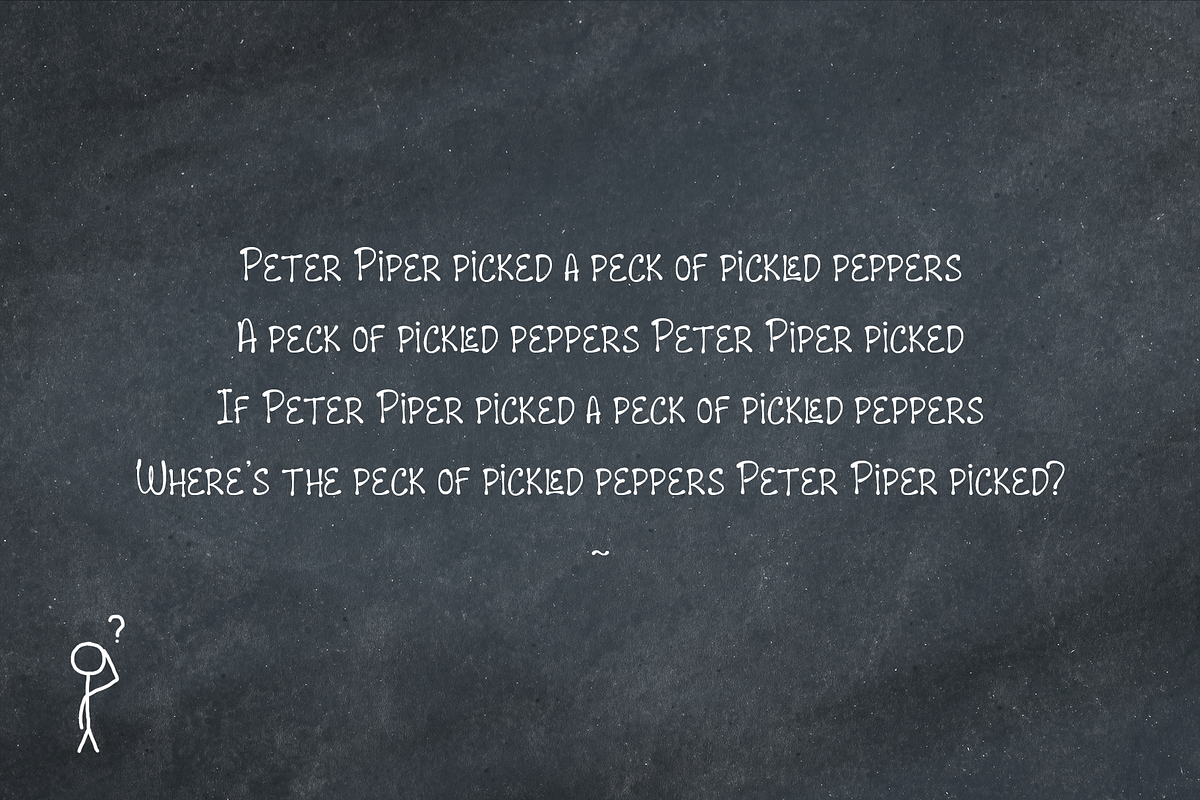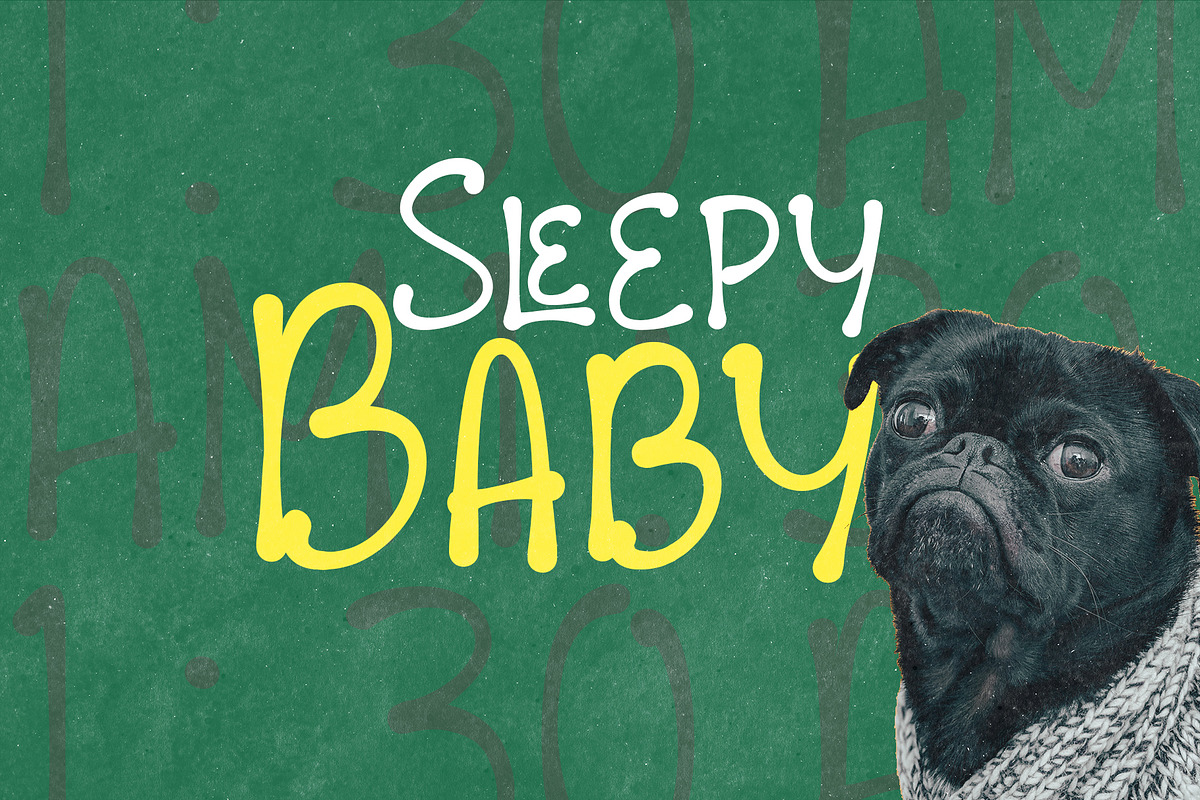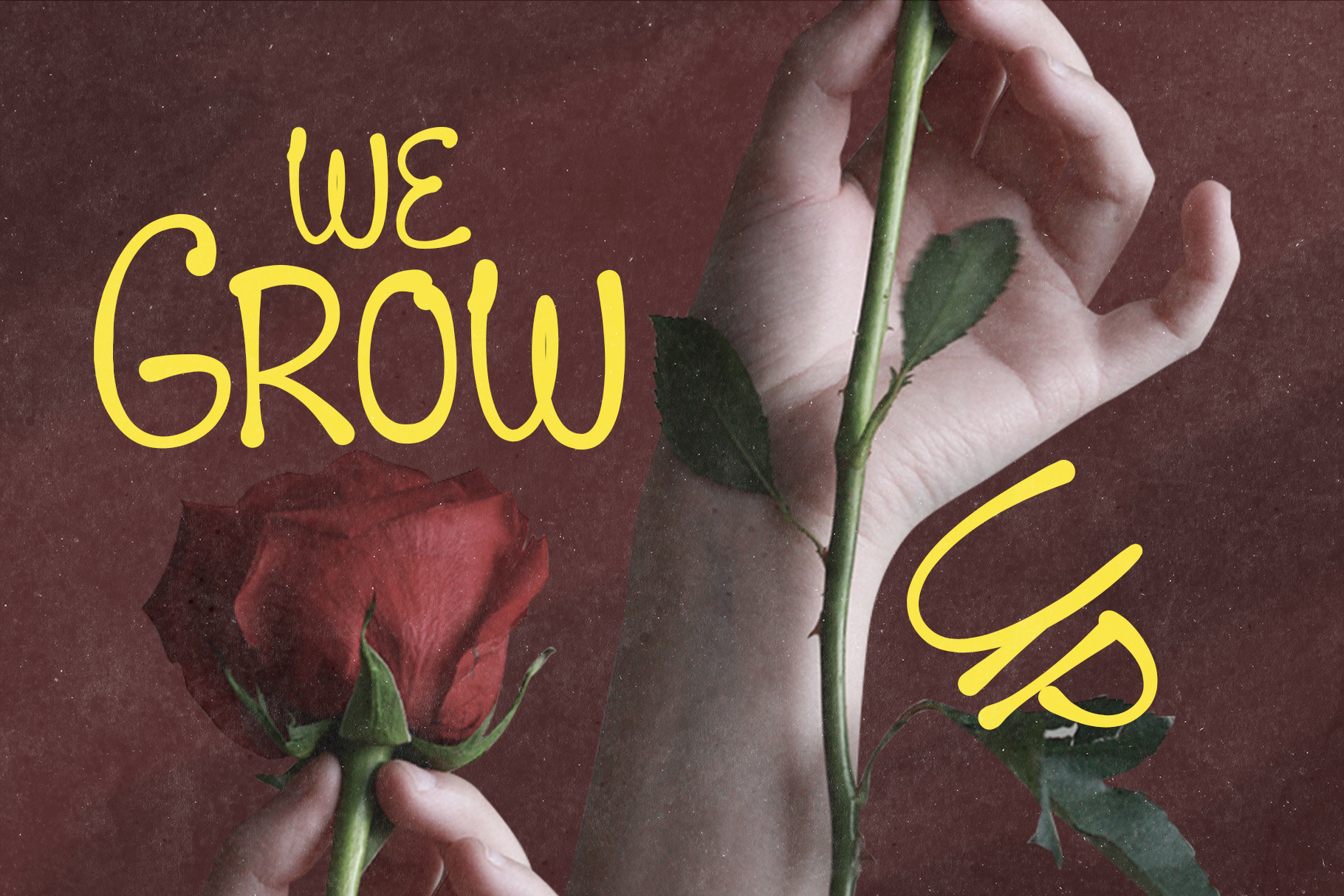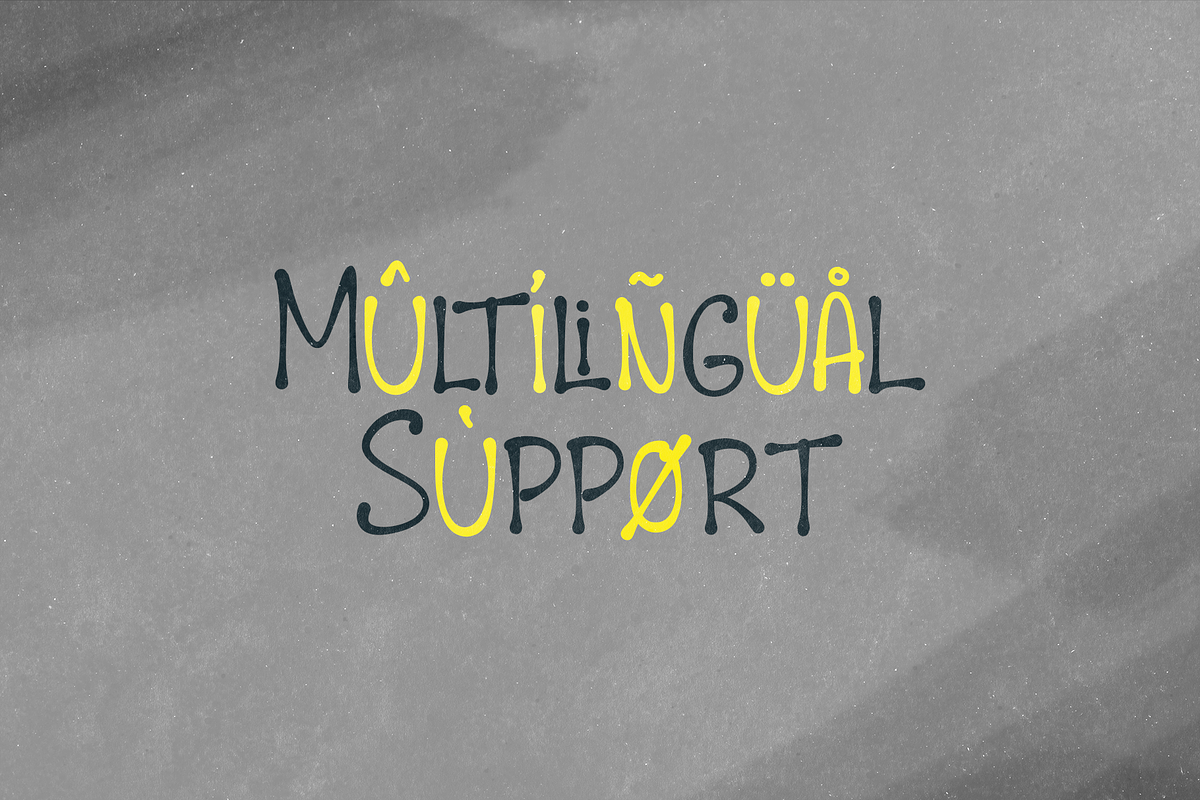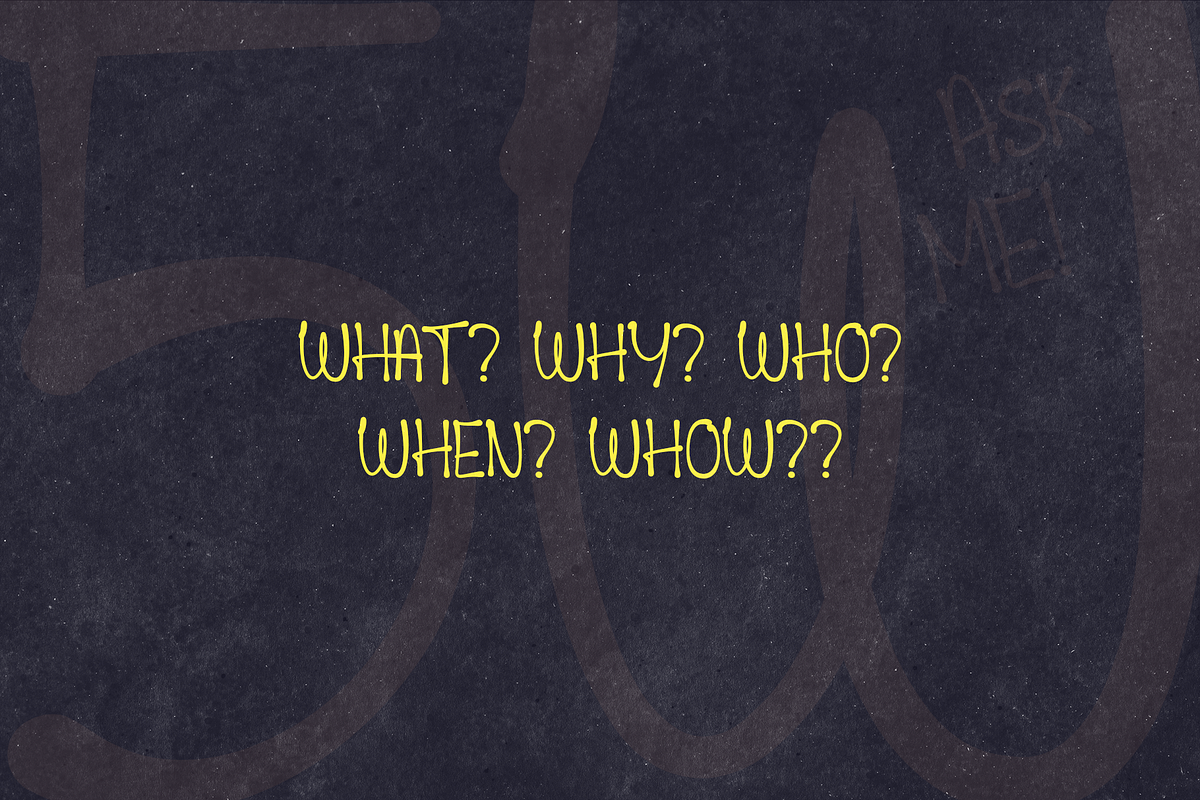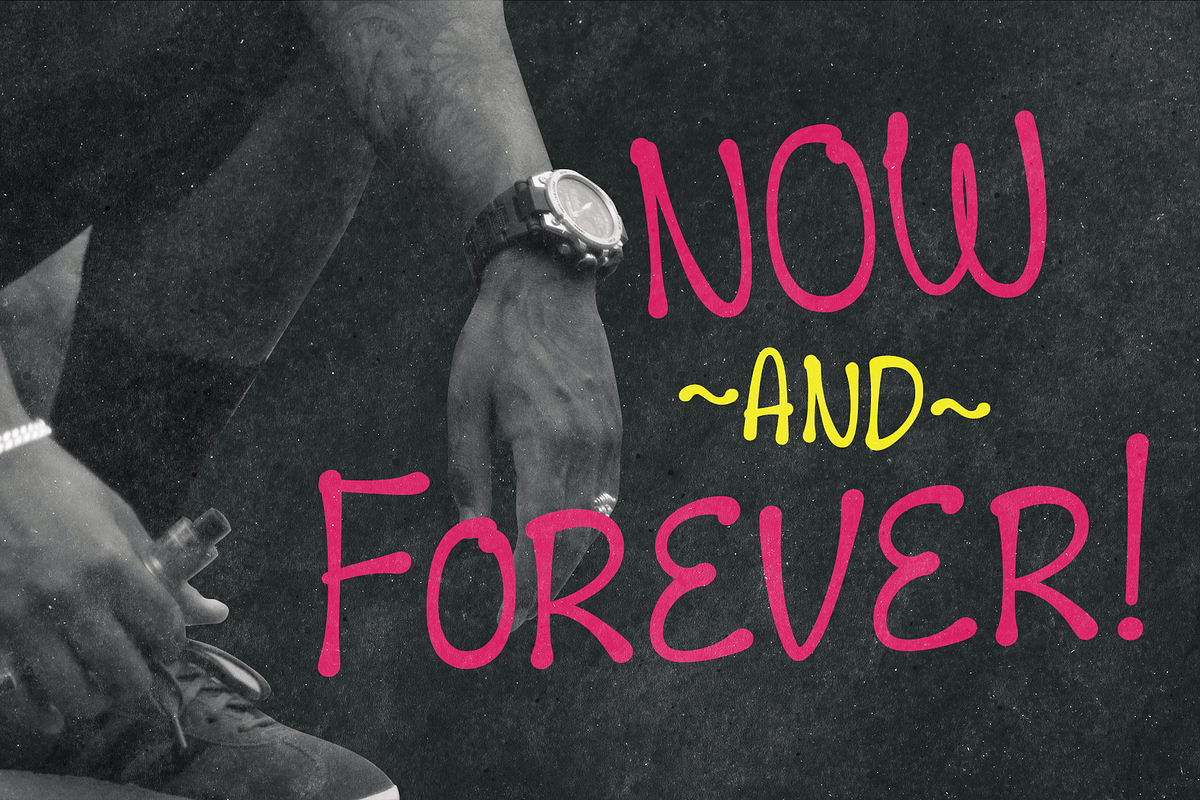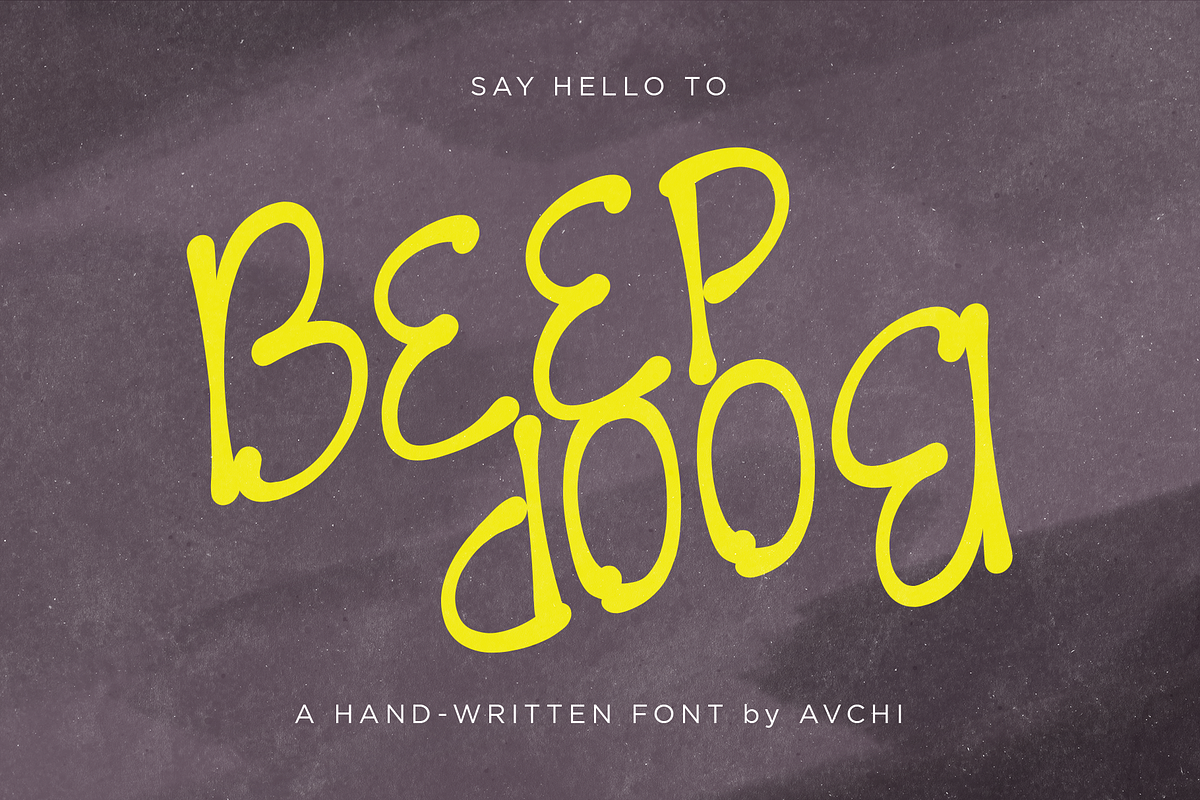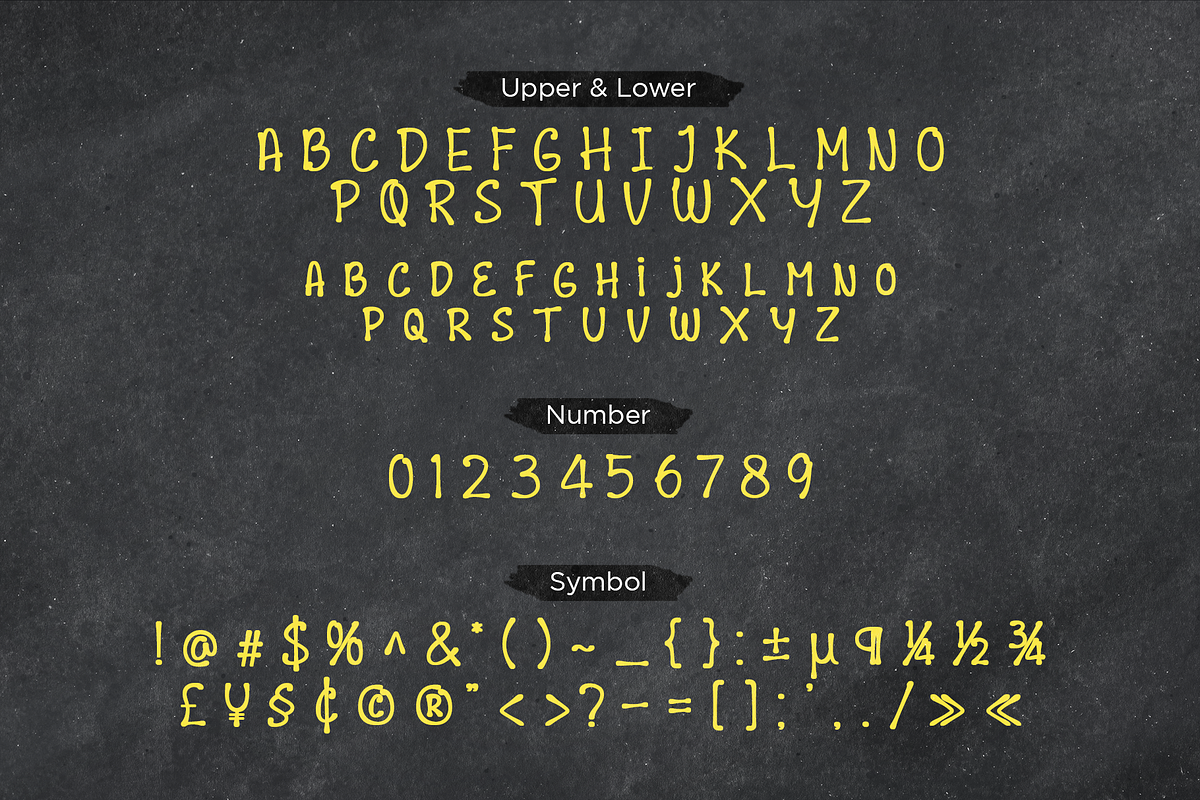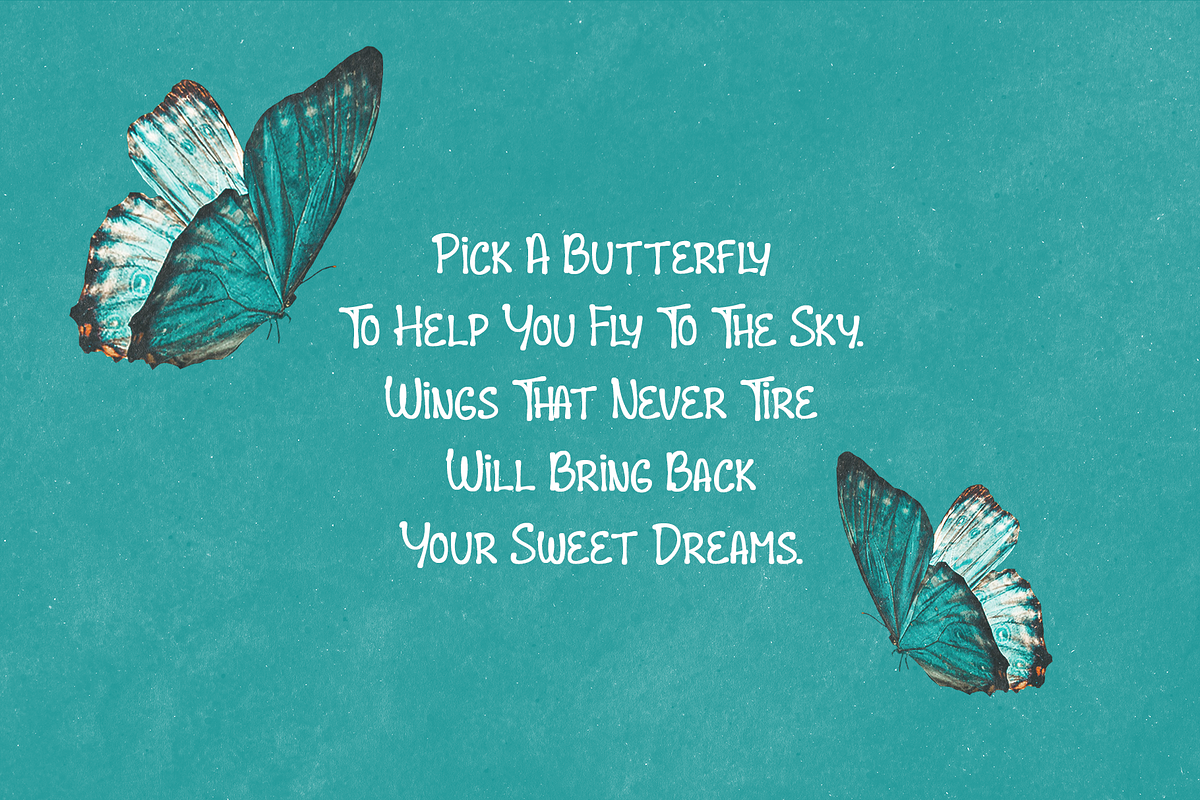
Beep Boop | A Handwritten Font
BEEP BOOP!
Beep Boop is a handwriting font inspired by doodle. Suitable for doodle style, grunge, comic, street style, and many more! Created with random ideas and freedom! This Font Include :